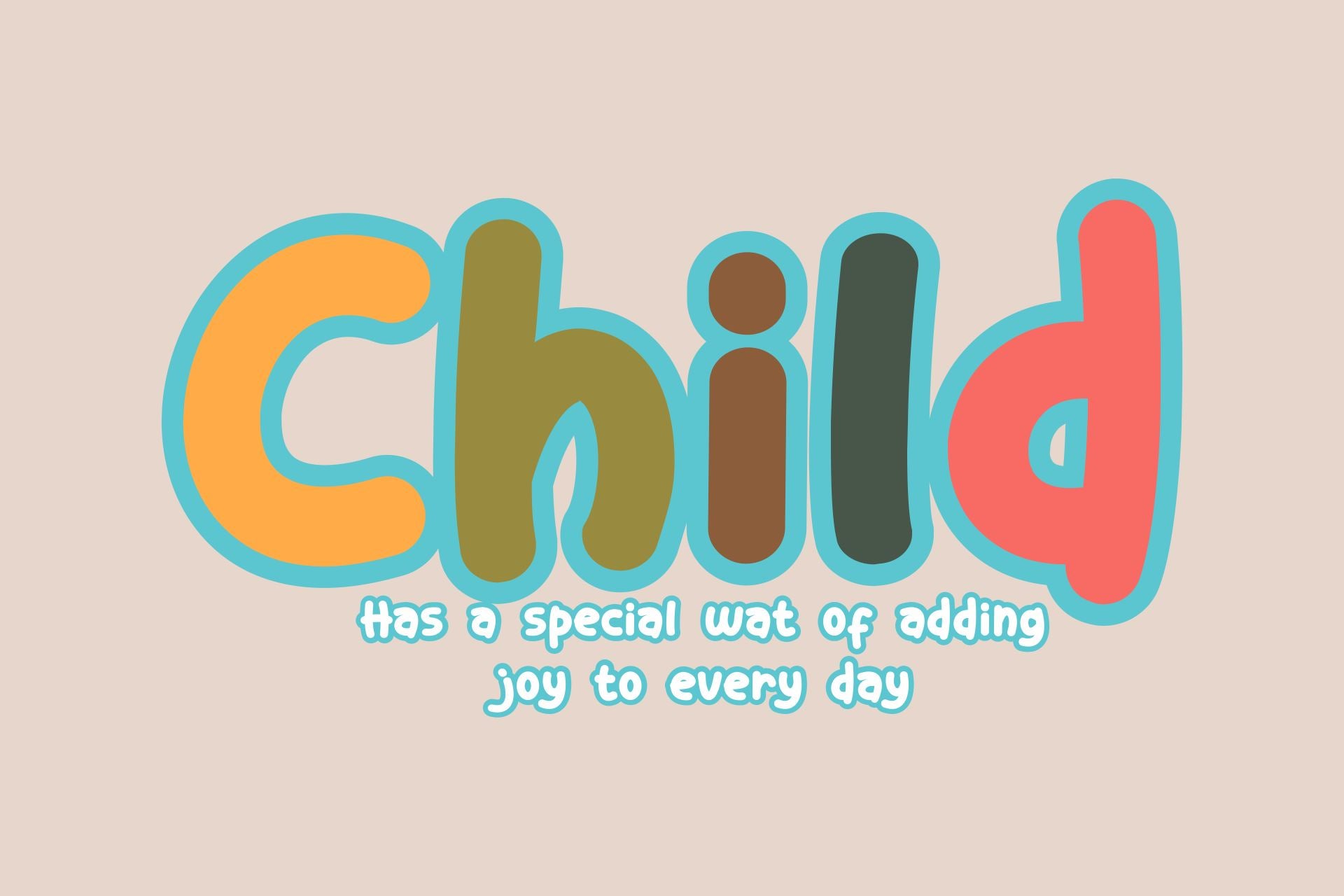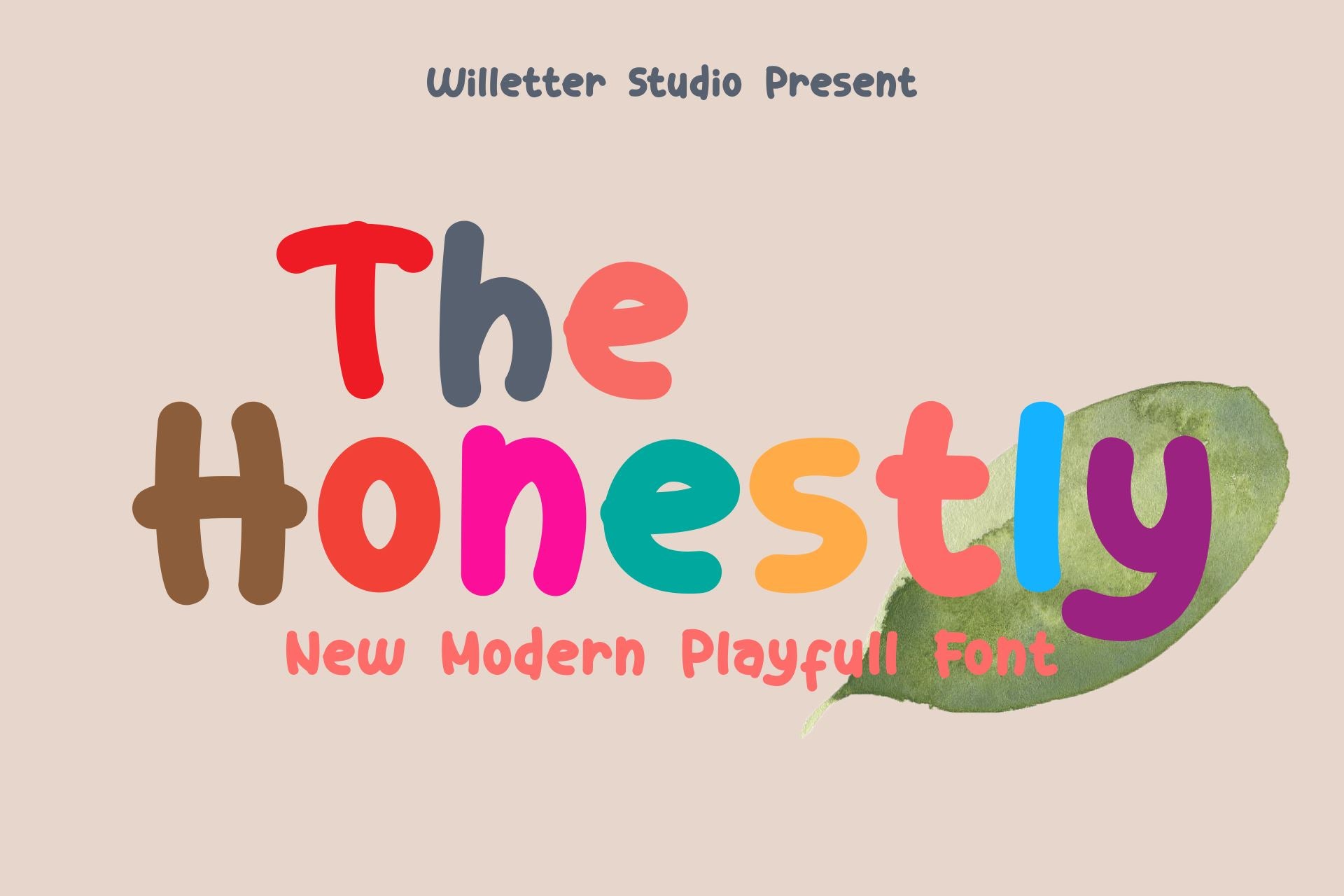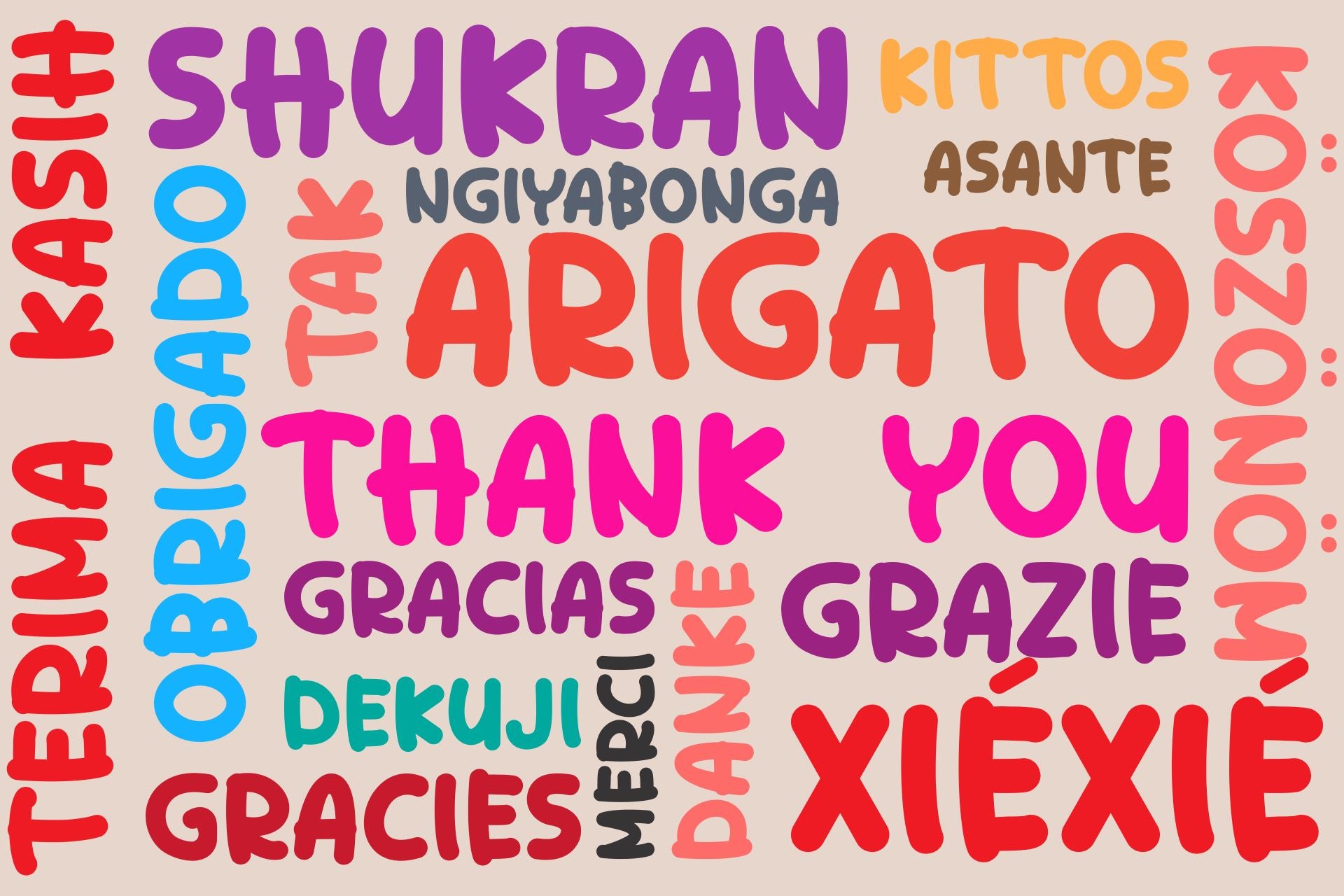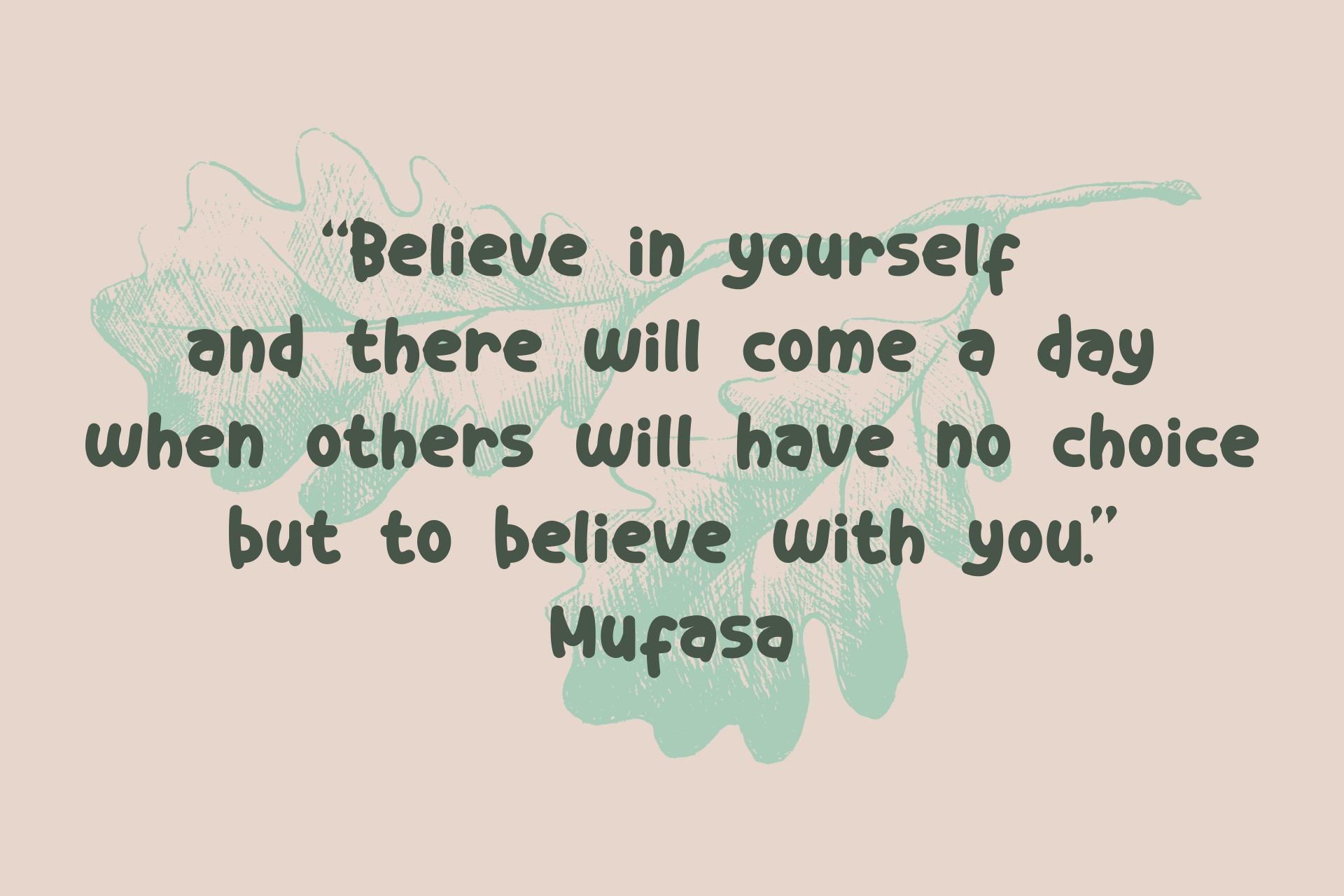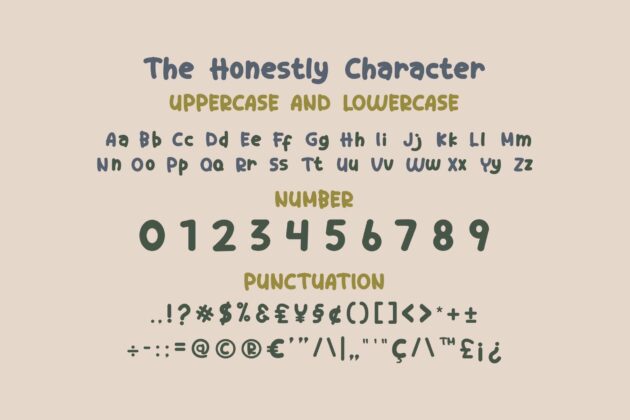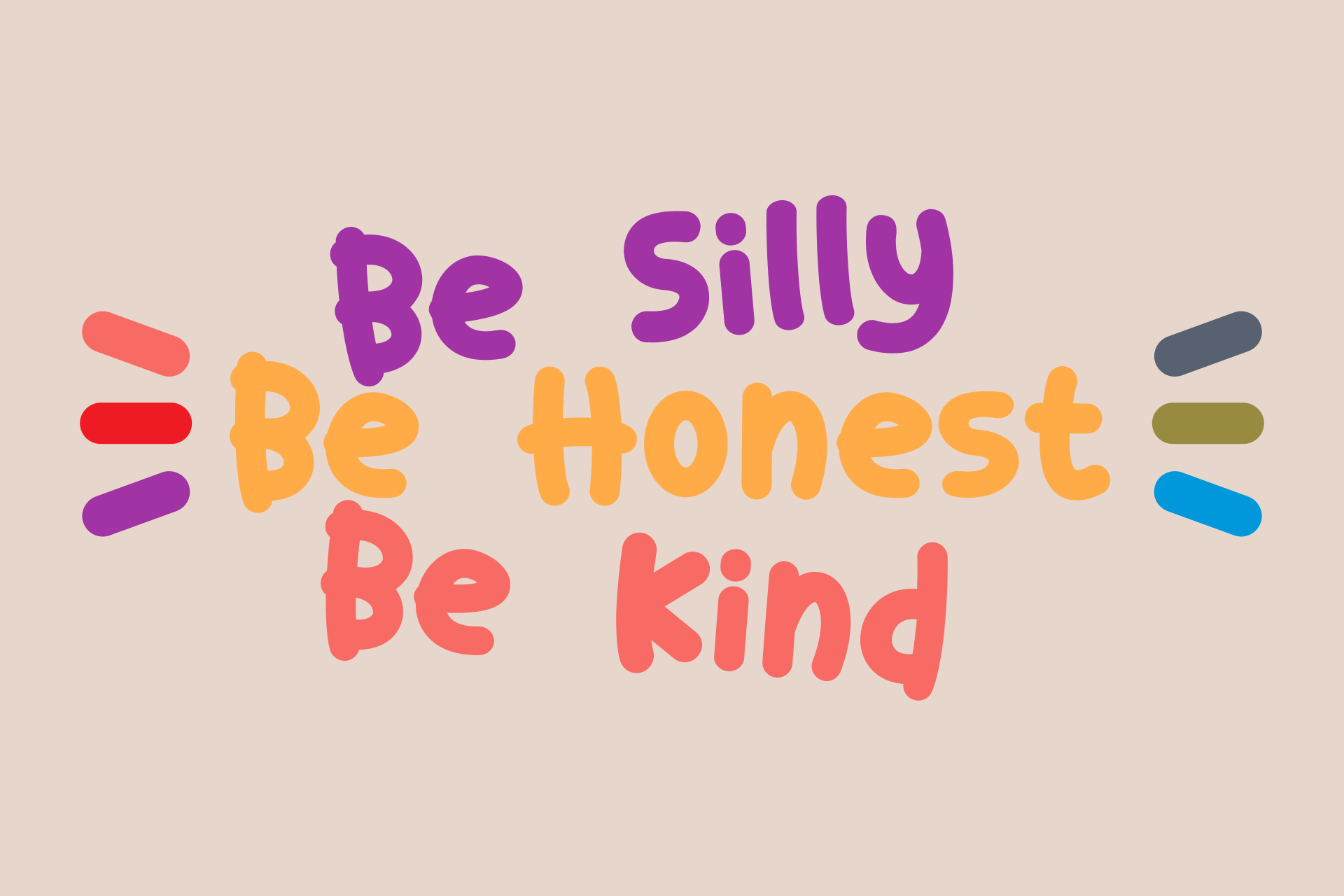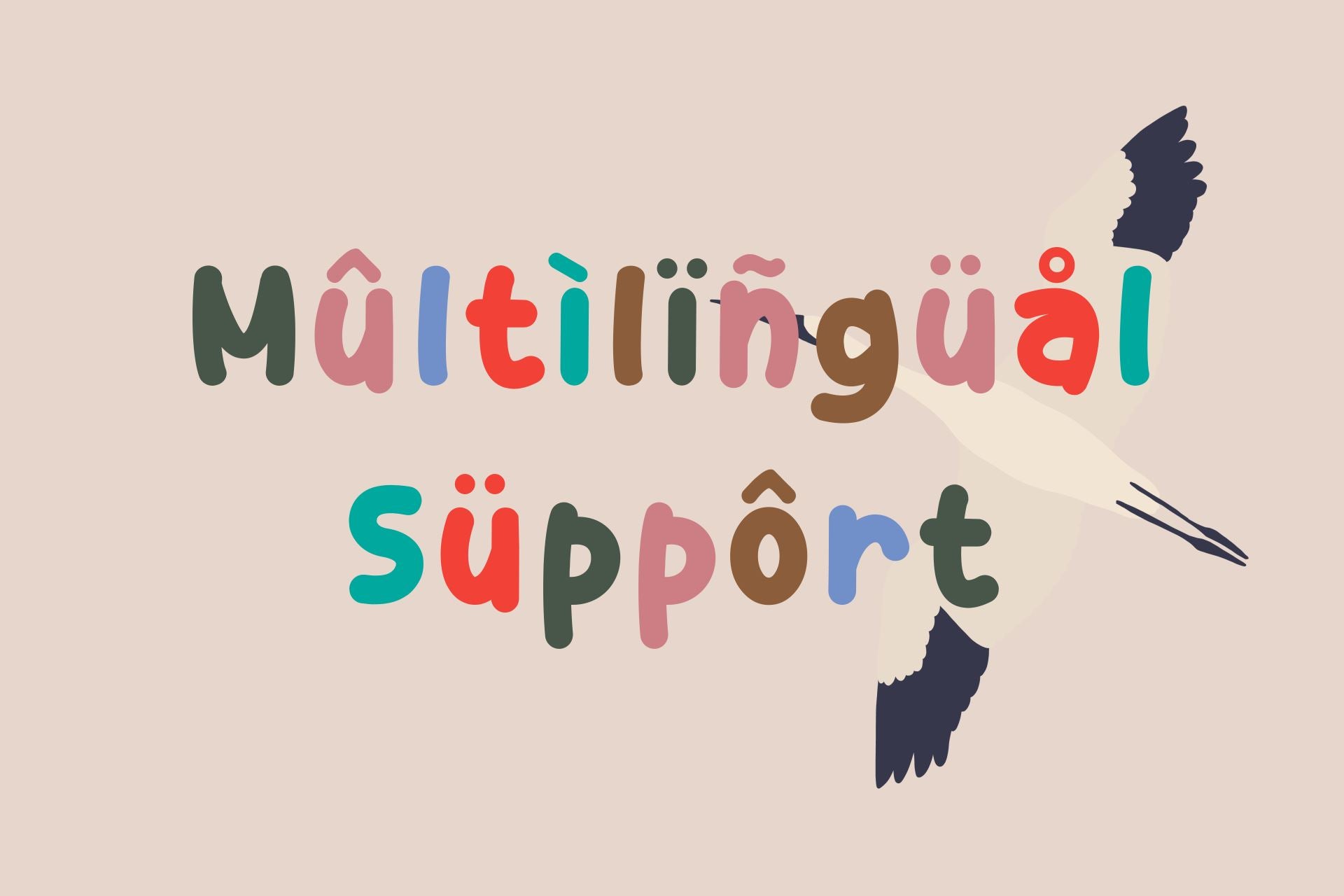
The Honestly
About The Honestly
The Honestly is a gorgeous display font, carefully created to become a true favorite. Its casual charm makes it appear wonderfully down-to-earth, readable and, ultimately, incredibly versatile. The Honestly will look outstanding in any context, whether it’s being used on busy backgrounds or as a standalone headline!